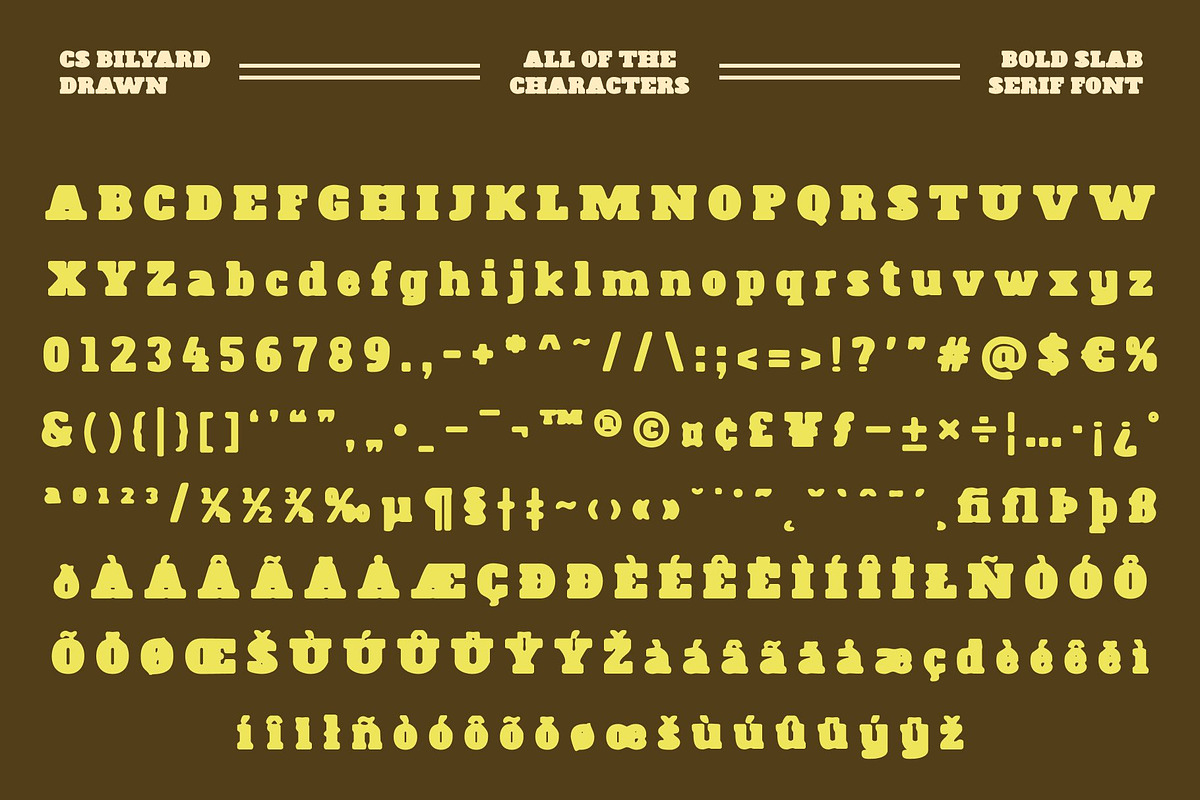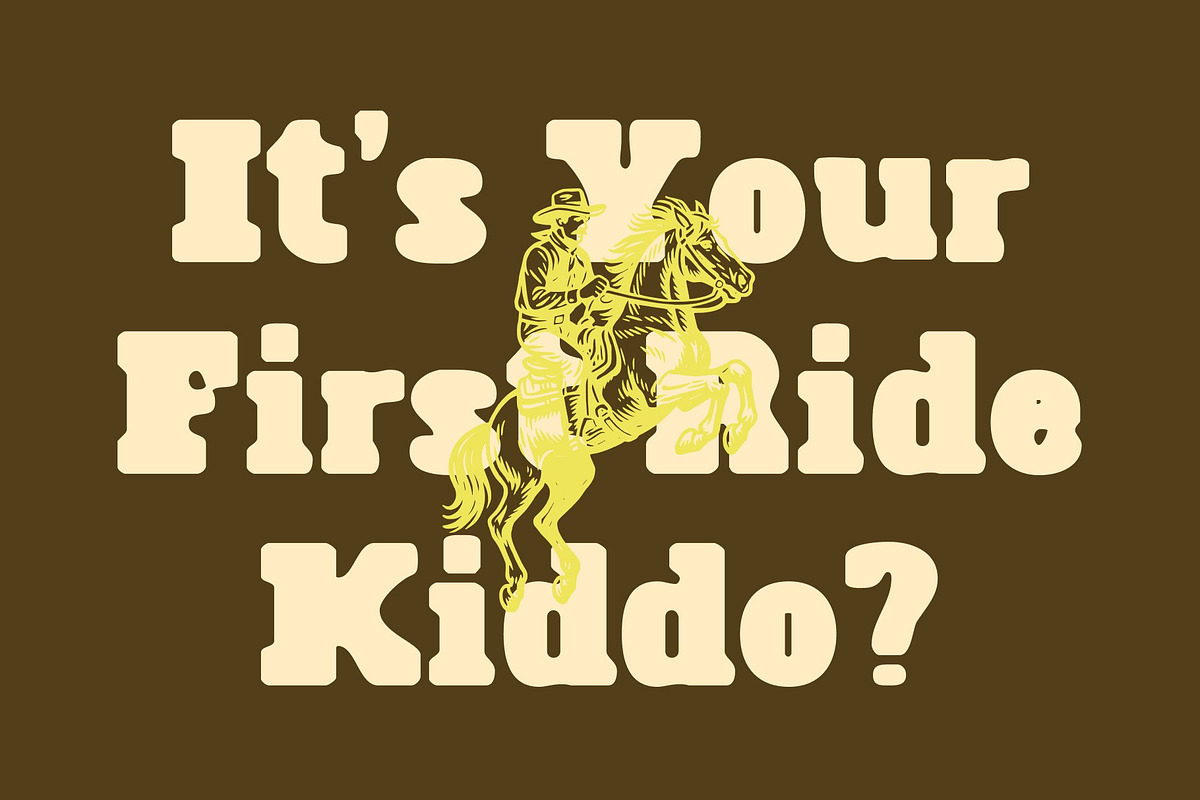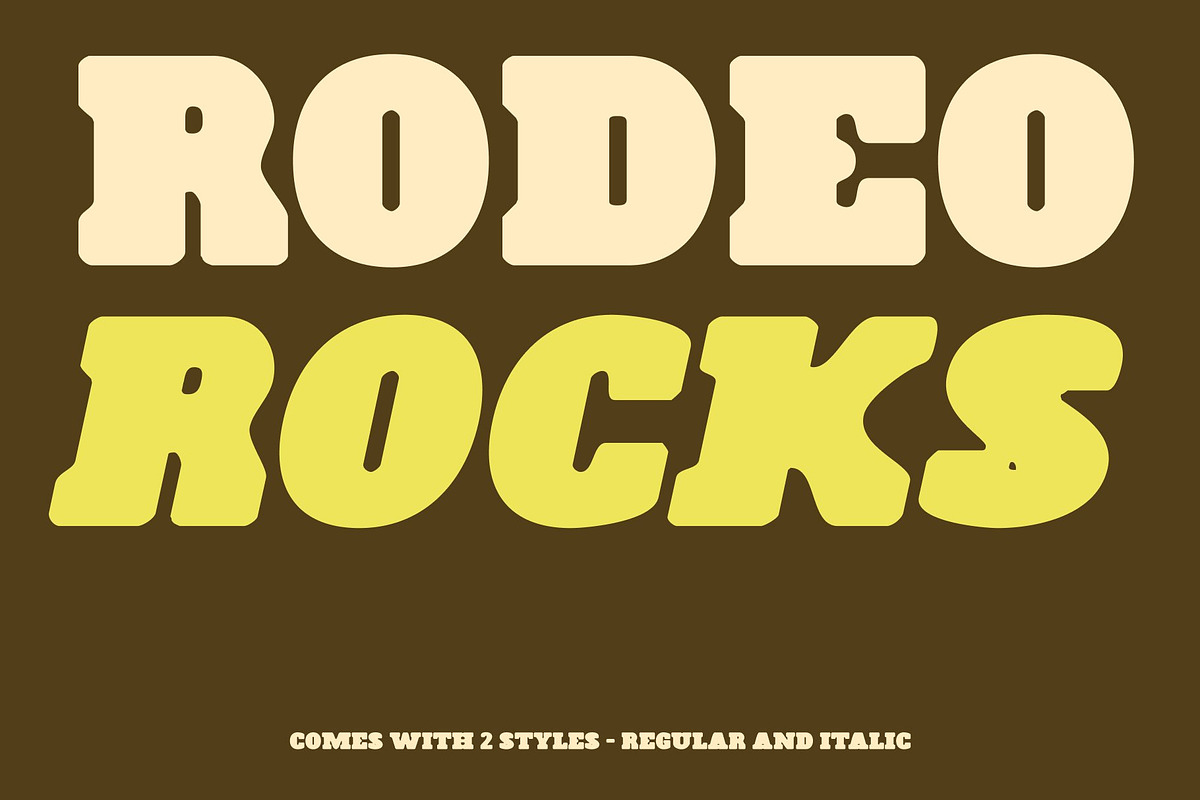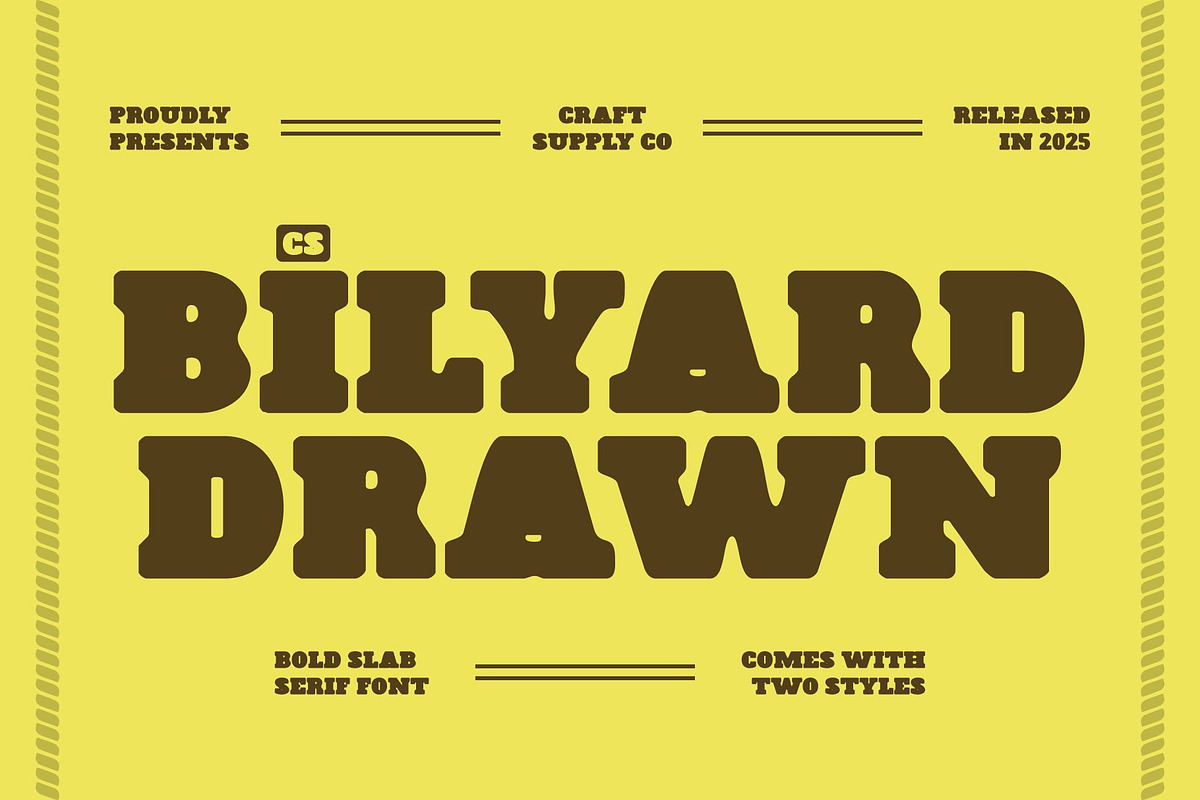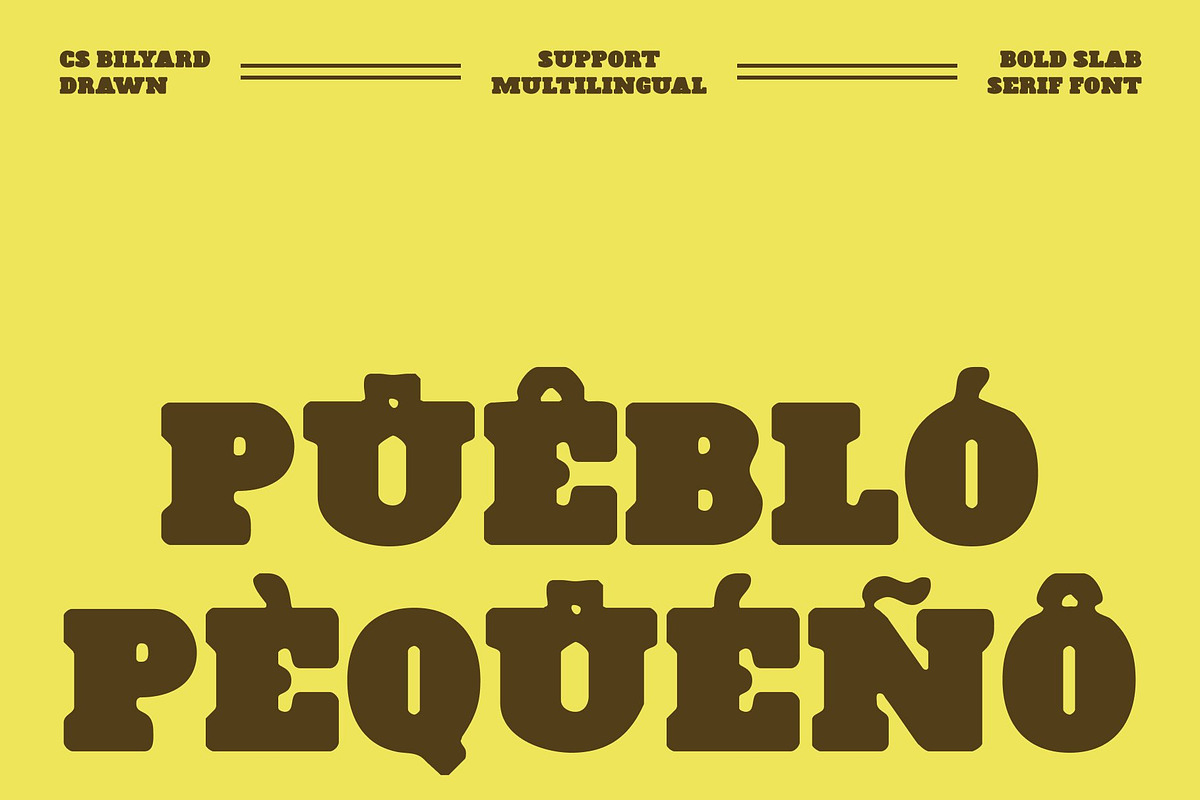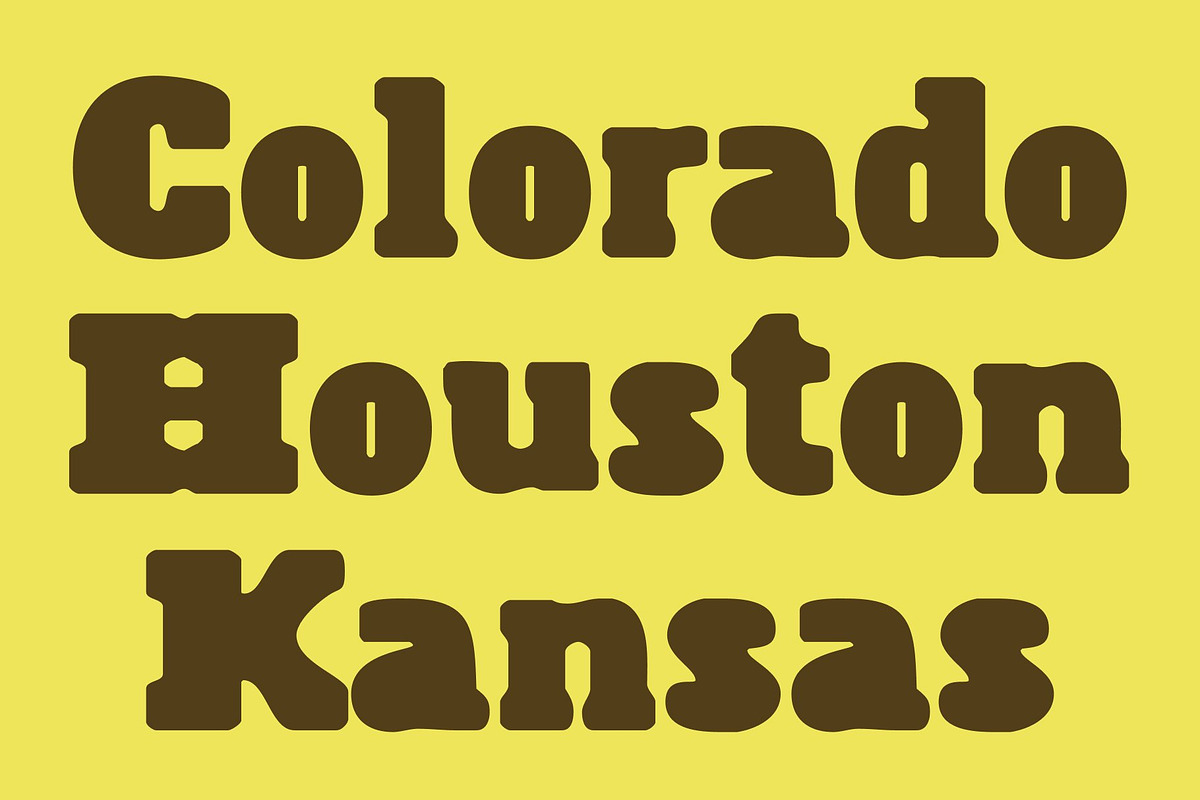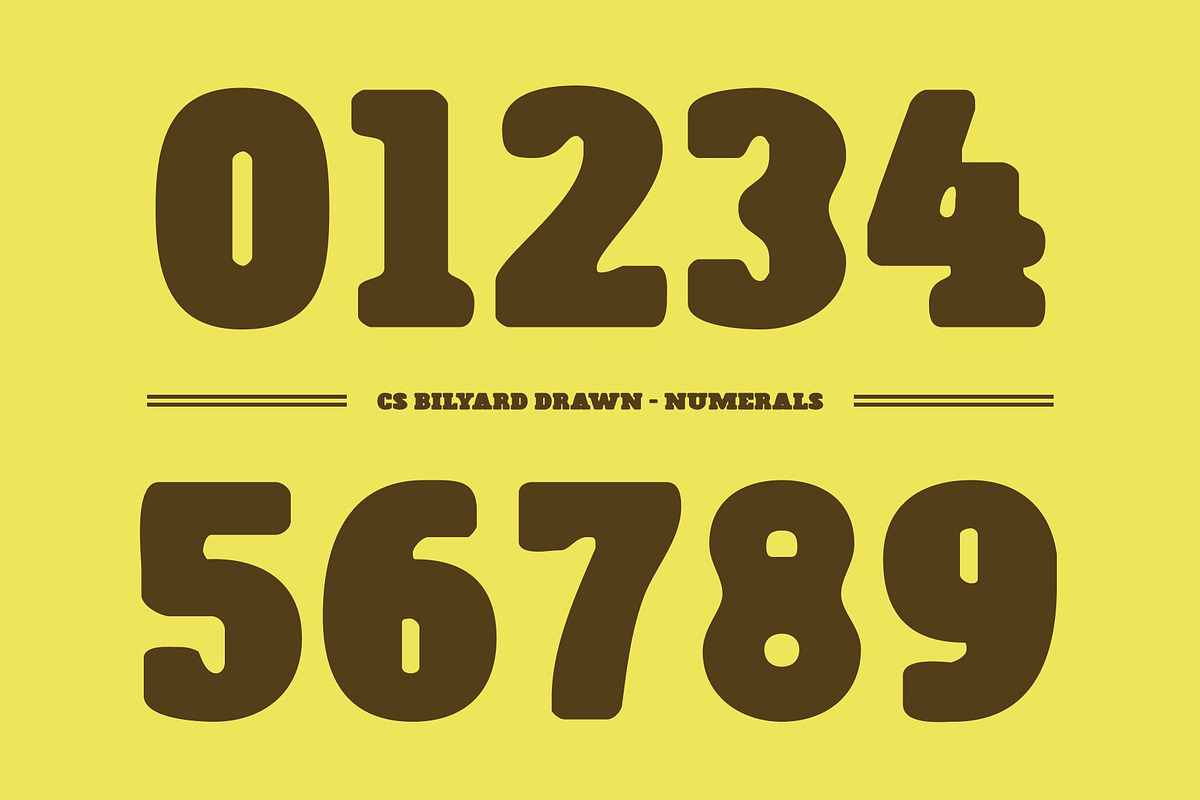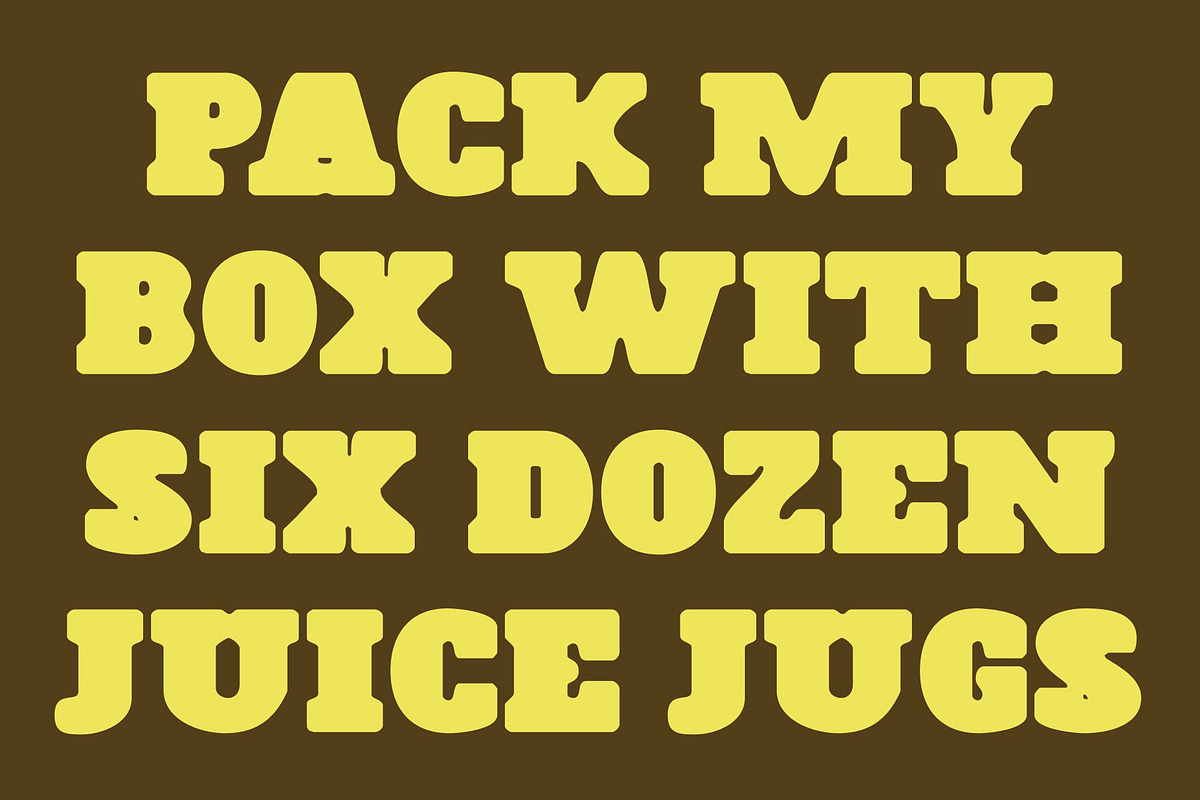
CS Bilyard Drawn
CS Bilyard Drawn – Retro-Inspired Slab Serif with Bold Personality
Confident Slab Serif with Nostalgic Flair This is a bold slab serif font that combines the strength of classic typography with a retro-inspired aesthetic. Its solid, structured letterforms convey authority and reliability, while subtle hand-drawn details add character, warmth, and a touch of personality, creating a typeface that feels both timeless and contemporary.
Robust Design with Clear Impact With wide proportions and well-defined slab serifs, this font ensures maximum legibility and presence. Its bold construction allows headlines, posters, and branding to stand out, delivering visual impact without losing elegance or readability.
Perfect for Branding, Display, and Editorial Work Ideal for large-format applications, this font brings retro strength to product packaging, logos, signage, and editorial layouts. Its blend of classic influence and modern execution makes it suitable for brands seeking a trustworthy yet dynamic visual identity.
Versatile for Modern and Nostalgic Projects Rooted in traditional slab serif design yet infused with contemporary flair, this font adapts seamlessly across creative projects from nostalgic campaigns to modern branding offering a perfect balance of heritage, clarity, and bold style.
- CS Bilyard Drawn Regular
- CS Bilyard Drawn Italic